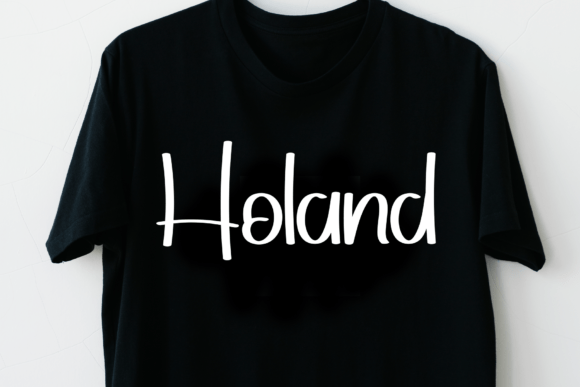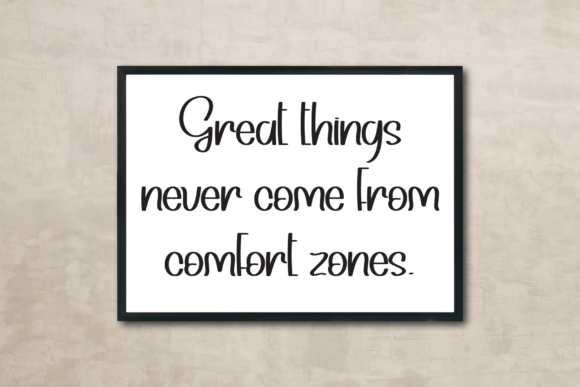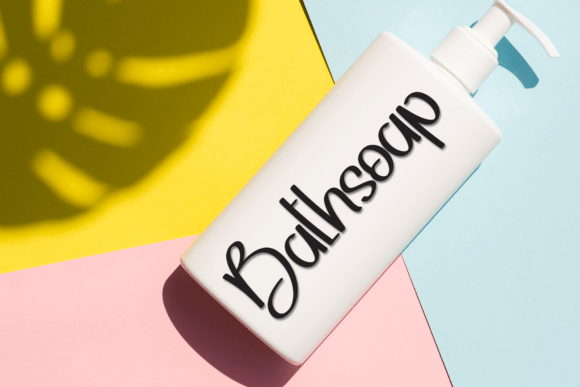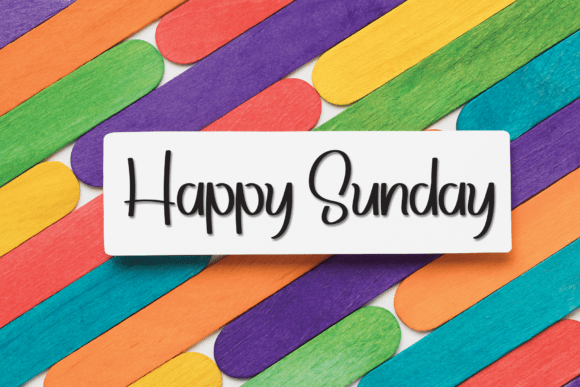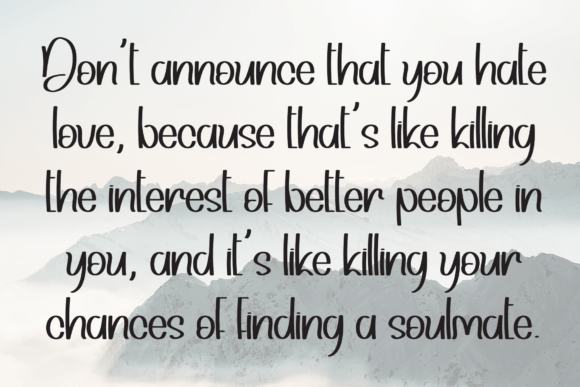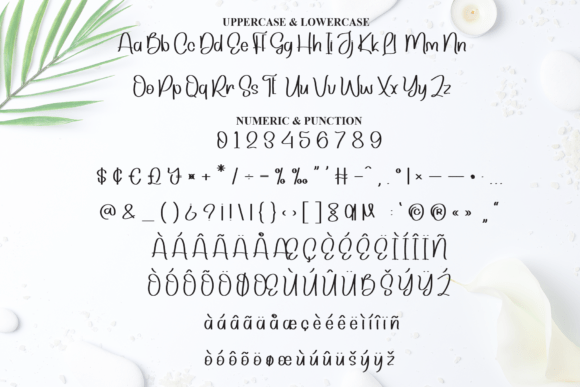
The Beauty of Typography: A Deep Dive into the Beauty Font
I’ll never forget the time I was working on a branding project for a new wellness center. I had nailed down the color palette, logo, and overall aesthetic, but something was missing. As I scrolled through font after font, none seemed to capture the warmth and approachability I was going for. That was until I stumbled upon the Beauty font. ✨
Designed to bring warmth and clarity to your projects, Beauty is a casual and neat display font that has become a staple in my design toolkit. With its clean structure and approachable style, it’s perfect for branding, headlines, and everyday designs.
- ✅ Readability: The balanced letterforms make it easy to read, even at smaller sizes.
- ✨ Charm: The font has a unique charm that makes every message feel genuine and inviting.
- ✅ Versatility: It suits a wide range of projects, from branding and headlines to social media graphics and more.
While Beauty is an excellent font, there are a few things to keep in mind: ⚠️
- 🤔 Limited use in body text: Due to its display nature, Beauty might not be the best choice for long-form body text.
- ⚠️ Requires attention to spacing: As with any font, pay attention to letter spacing to ensure optimal readability.
The Story Behind Beauty Font
The Beauty font was designed with the intention of creating a warm and inviting typography solution. The designer aimed to craft a font that would bring a sense of approachability and clarity to various design projects. While the exact inspiration and design process might be unknown, it’s clear that Beauty was created with the goal of making typography more accessible and charming. 💡
Q: What type of projects is Beauty font best suited for?
A: Beauty font is ideal for branding, headlines, and everyday designs where a warm and approachable tone is desired.
Q: Can I use Beauty font for body text?
A: While Beauty is a display font, it can be used for short paragraphs or body text. However, for longer content, a more traditional body font might be more suitable.
Q: Does Beauty font support OpenType features?
A: Yes, Beauty font supports OpenType features, including stylistic alternates and glyphs, which can be accessed in compatible design applications.
Q: Is Beauty font suitable for digital interfaces?
A: Yes, Beauty font is suitable for digital interfaces, including websites, social media graphics, and mobile apps, due to its clean structure and readability.